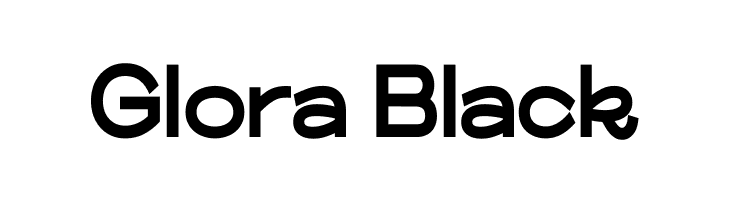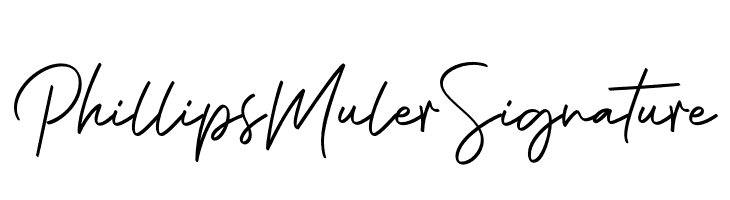
A bold, modern sans-serif font with clean lines and geometric shapes.
A bold, shadowed font with a strong, three-dimensional appearance.
A modern, dotted font with a digital, pixelated appearance.
An elegant, cursive font with a handwritten feel and graceful flow.
A bold, distressed font with a grunge, textured appearance.
A bold, expressive handwritten font with fluid, dynamic strokes.
A bold, jagged font with a raw, hand-drawn appearance.
A bold, elongated font with a modern and decorative style.
A playful, handwritten font with smooth, flowing strokes and a casual elegance.